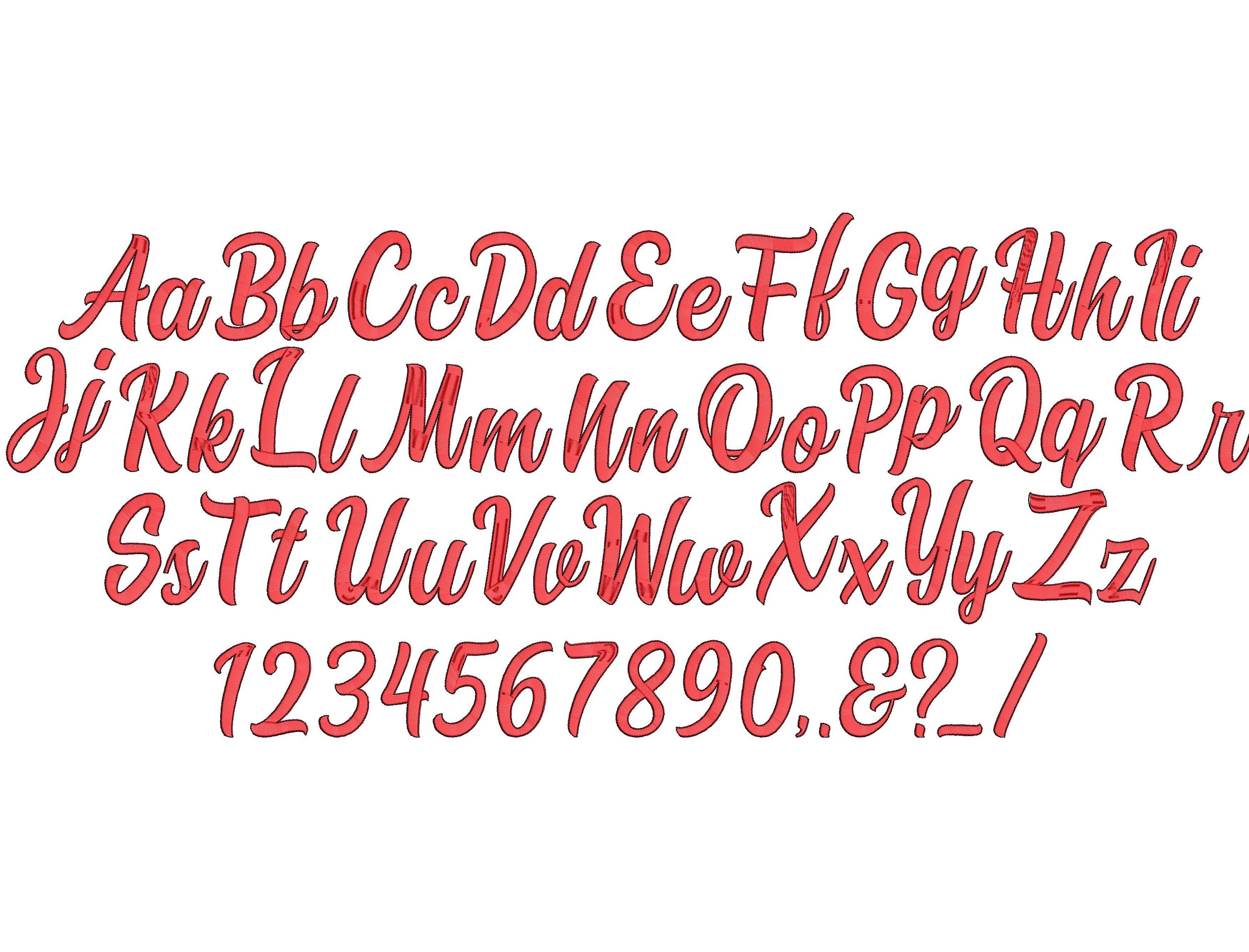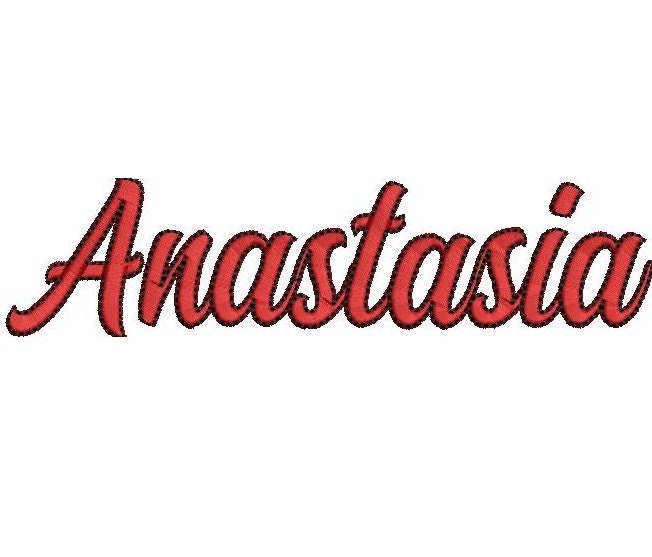
Delicate Font satin stitch with bean stitch outline machine embroidery designs handwritten Alphabet Monogram small sizes 1 up to 3.1 inch BX
Whole alphabet uppercase and lowercase letters, numbers, and punctuation.